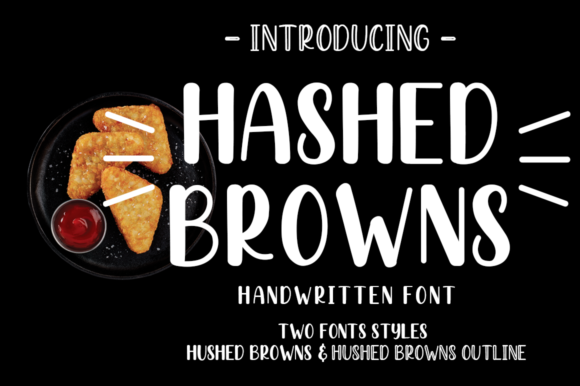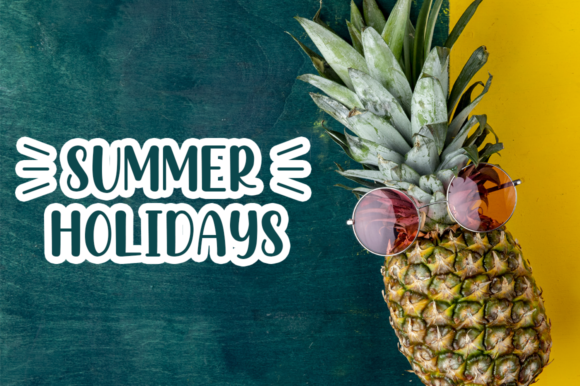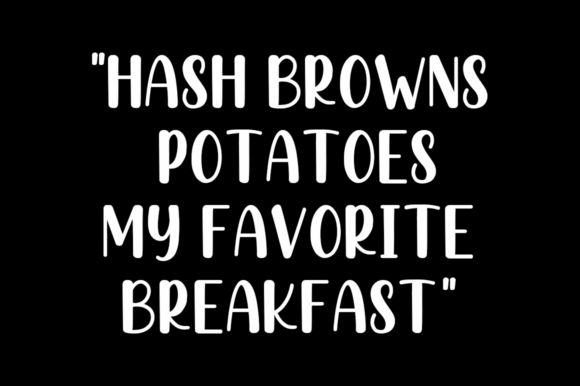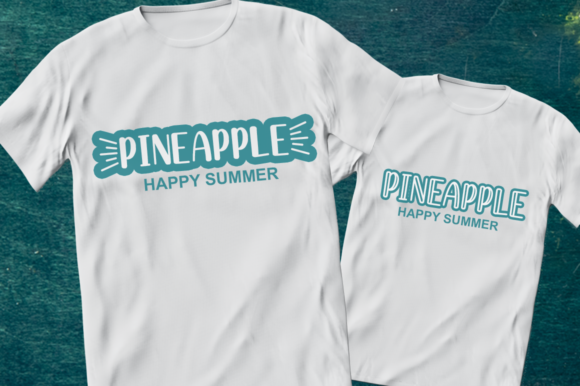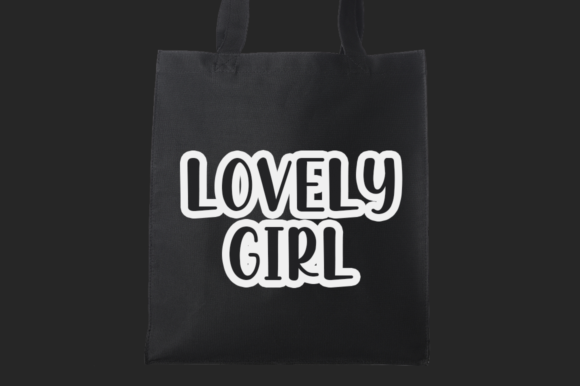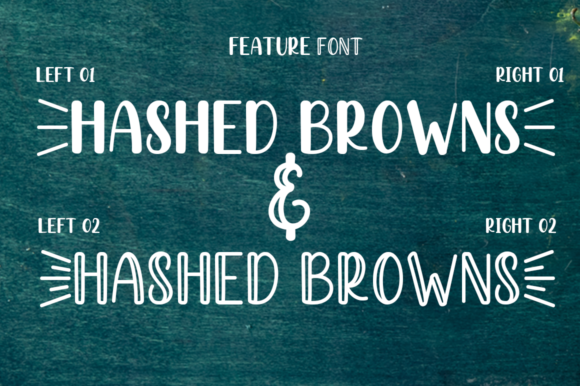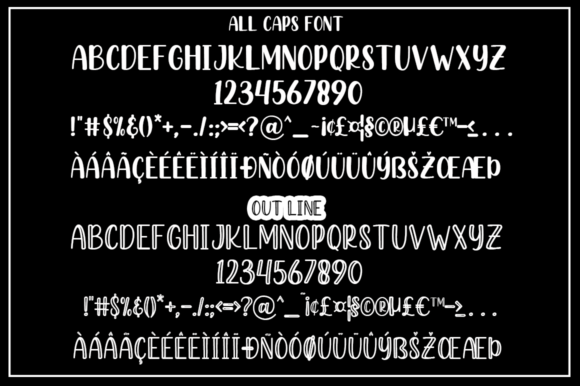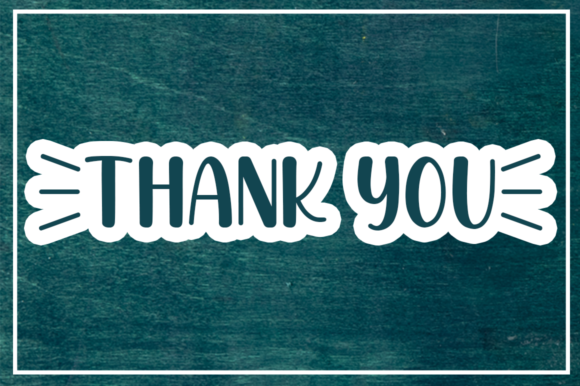
Hashed Browns Font
About Hashed Browns Font
Hashed Browns is an amazing handwritten font. This enchanting font will turn any creative idea into a true standout. Get creative with its childlike playfulness, and use it to brighten up any crafting project!